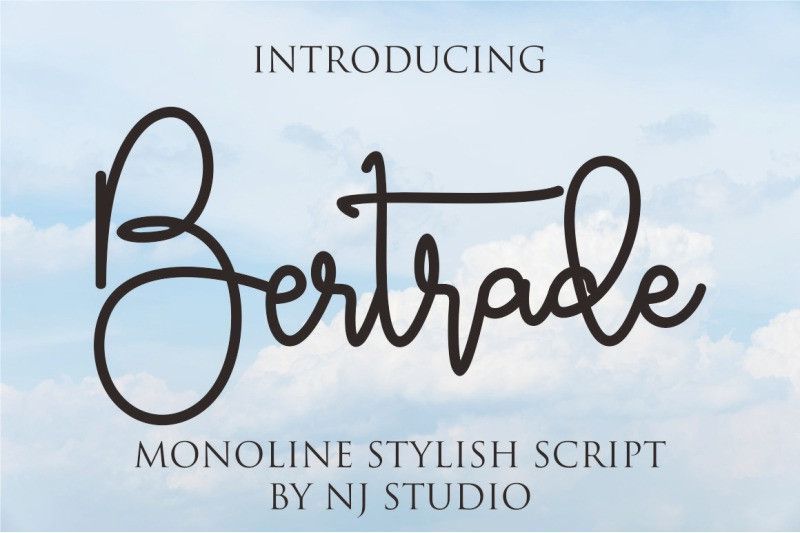
Bertrade Font
Bertrade Font is a handwritten script font with a simple and classy style, this font is great for your next creative projects such as watermark on photography, signature or signature logo design, quotes, album cover, business card, and many other design project.